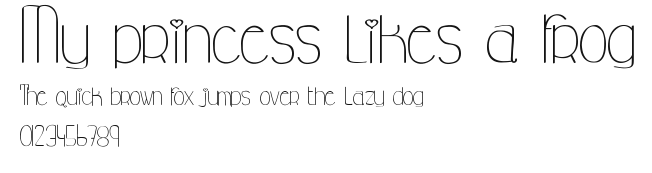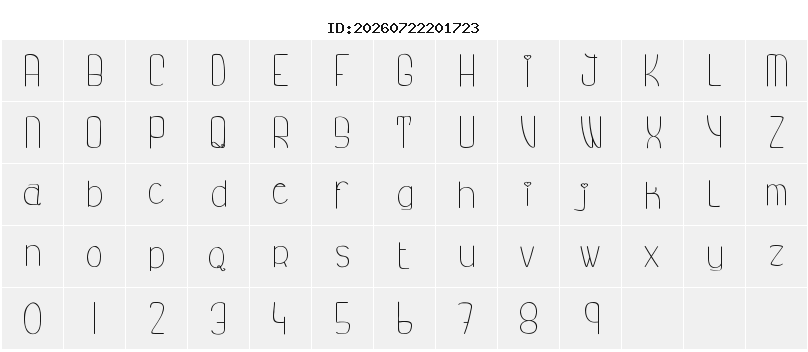
• Font Name: My princess likes a frog
• Manufacturer: M.K.V
About My princess likes a frog.ttf
My princess likes a frog.ttf is a modern, elegant sans-serif font designed for ultimate readability and visual harmony. Perfect for branding, headlines, web design, and print materials.